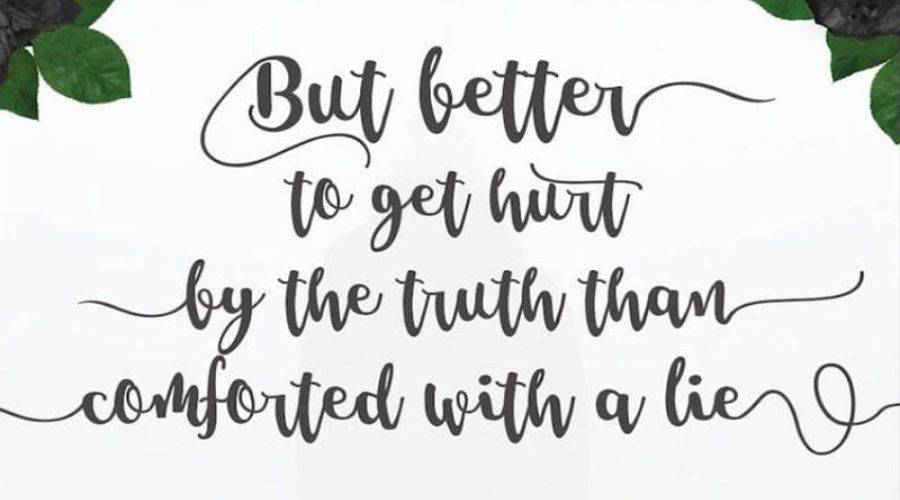
About Salma Script
Today, we will show you the Salma Script Font Family, which is a handwritten font family. On November 8, 2016, MissinkLab Studio, an Indonesian type foundry, took the lead in designing this amazing typeface for the first time. Salma Script is ideal if you’re looking for a typeface that can be used in a variety of designs. This is a premium font that is sold on CreativeMarket, but it was so good that it is available for free today. Salma is a new, fresh, and modern script with a handcrafted calligraphy style.
This font comes with uppercase, lowercase, numeric, special characters, and alternates. This script font offers a lot of value in the type design market, in addition to its really lovely appearance. Because this typeface has a distinct look and feel to it, with thick and heavy strokes. Due to its distinct aesthetic, you’ve probably encountered this typeface in a variety of designs created by well-known designers. There are six different styles in the Salma Script Font Family. And each of these designs has its own set of sultry glyphs, amazing swashes, and sophisticated layouts that set it apart from the rest.
Salma Script Font is ideal for logos, branding, invites, stationery, wedding designs, logos, business cards, covers, t-shirts, social media posts, and more. It will also be utilized to generate a stunning image and text in a variety of colors and styles. The typeface does a great job at simulating printing, so it seems like natural handwriting.